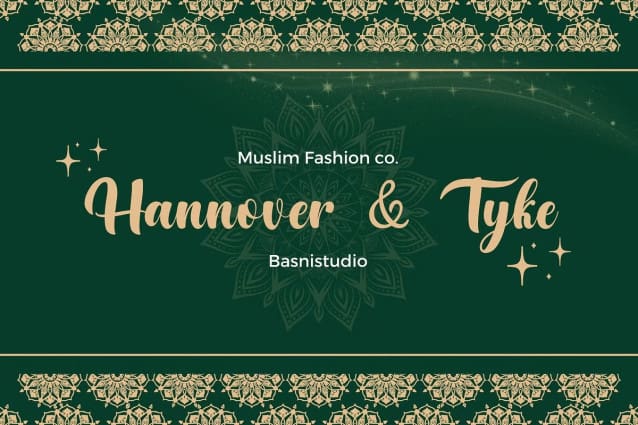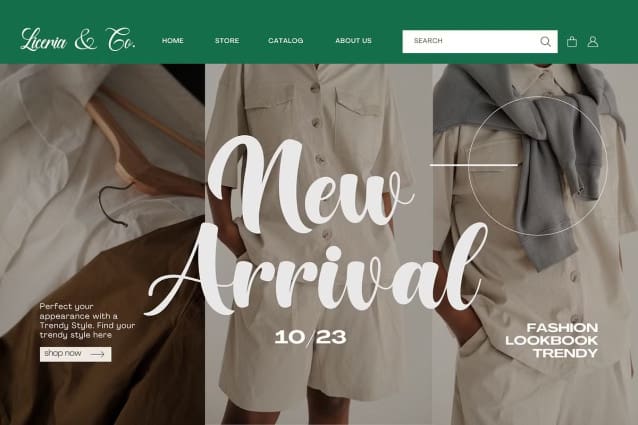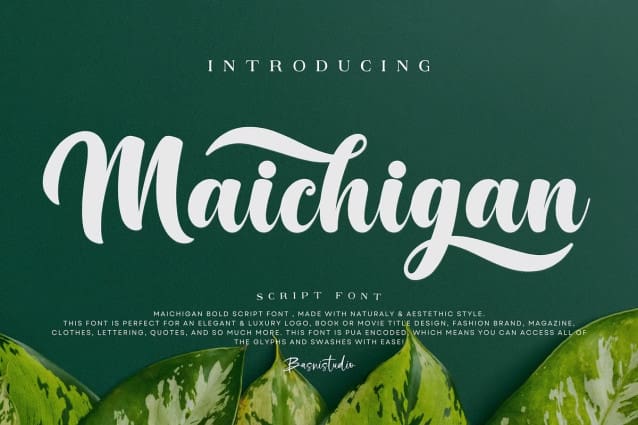
Maichigan Font
Maichigan Font – Bold Script Font, made with Naturaly & Aestethics Style. This Font is perfect for an elegant & luxury logo, book or movie title design, fashion brand, magazine, clothes, lettering, quotes, and so much more. This font is PUA encoded, which means you can access all of the glyphs and swashes with ease!